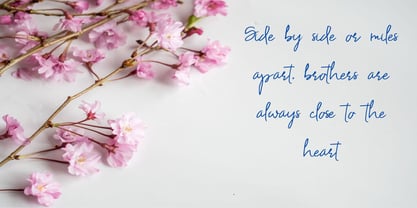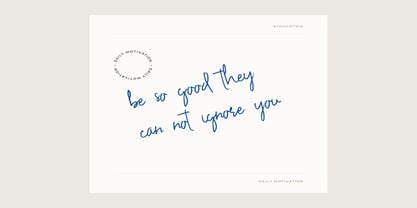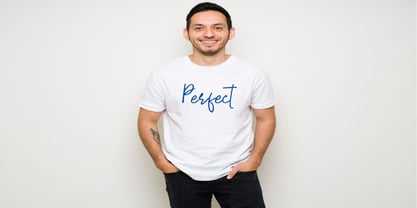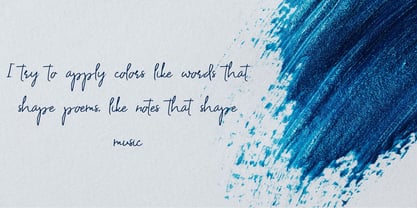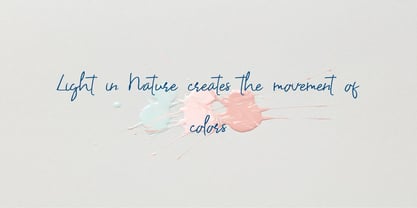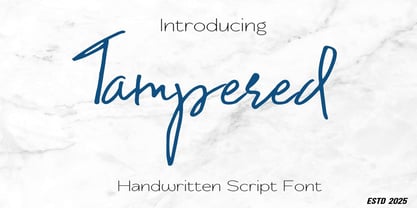
Tampered
The Tampered Font Family was designed by Patricia Carvalho and published by Dream Font. Tampered contains 1 styles.
Tampered is a modern font inspired by clean and tidy handwriting. Featuring fabulous beginning and ending lowercase swashes, this is perfect for branding, logos, invitation, greeting cards, headlines and more.
Tampered is PUA encoded which means you can access all of the glyphs and swashes with ease.Tampered is a beautiful and modern handwriting script typeface.Tampered is suitable for any project type and comes with multilingual support.